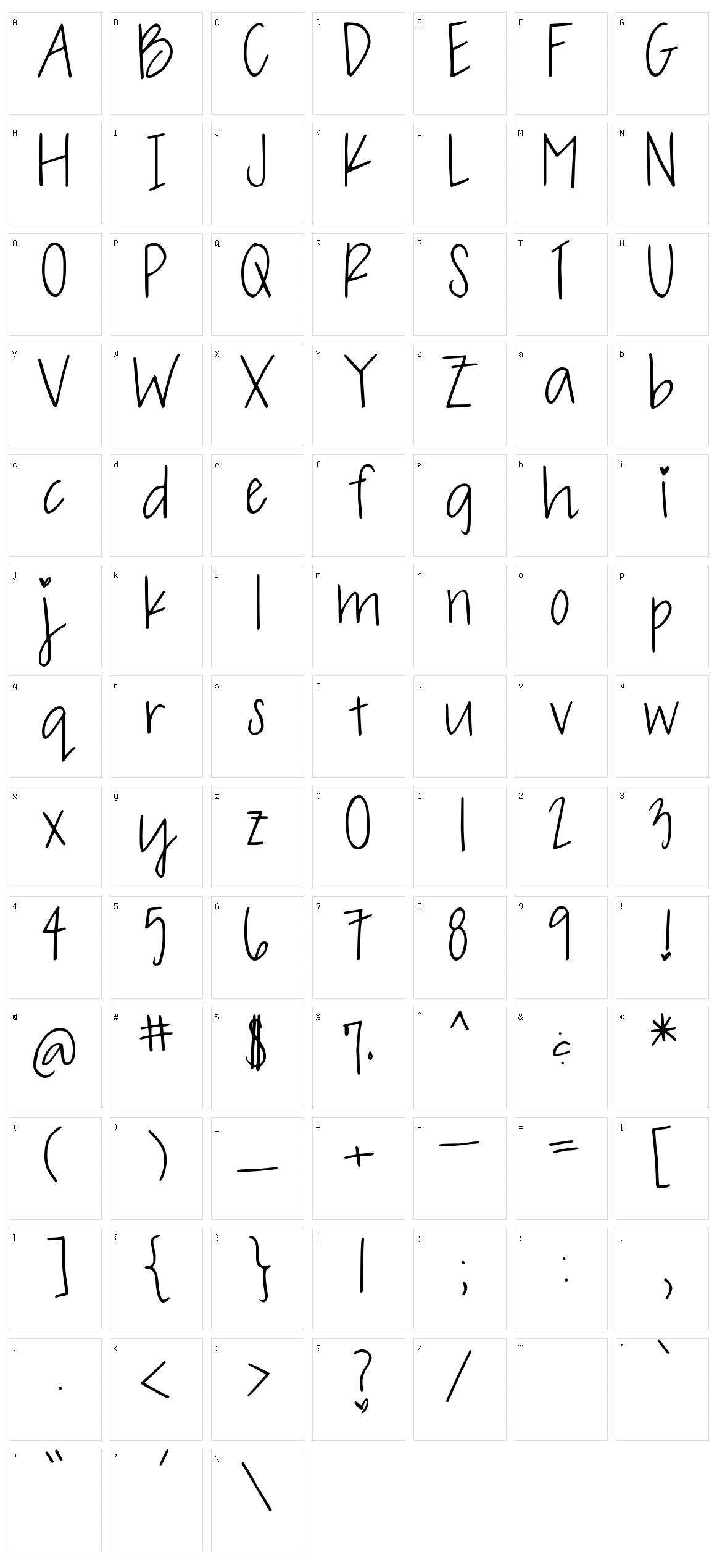
The free font Olive Charming is carefully designed by Joelle Duff, showcasing a thoughtful balance of creativity and usability and falls under the Script font style. When you download the ZIP file, it contains only 12.04 KB of font files, making it lightweight and quick to download. Please review the license details below to understand permitted usage and distribution rights. If license information is not available, we recommend using this font for personal projects only or contacting the author directly for commercial usage permissions.